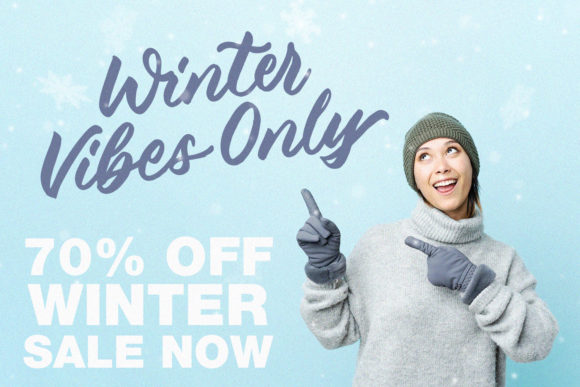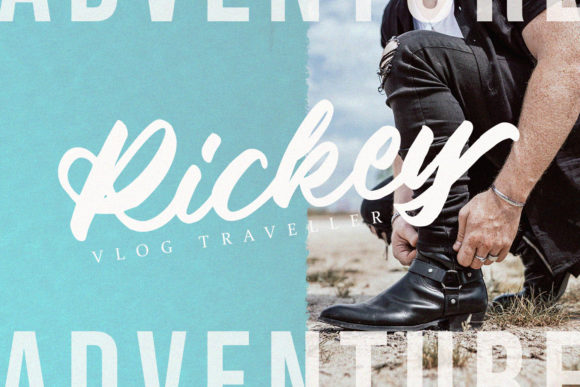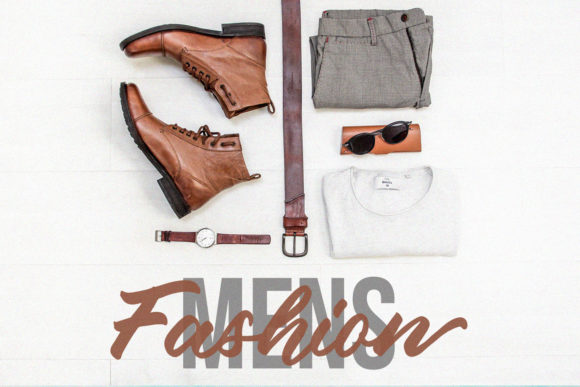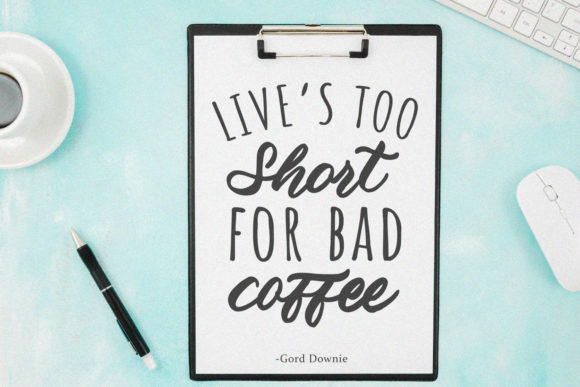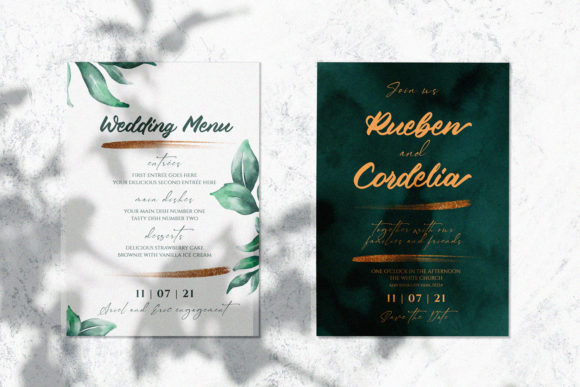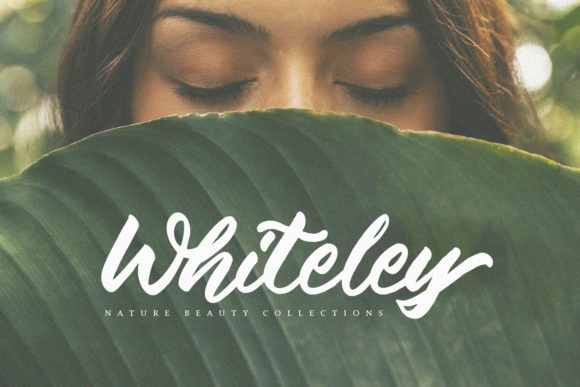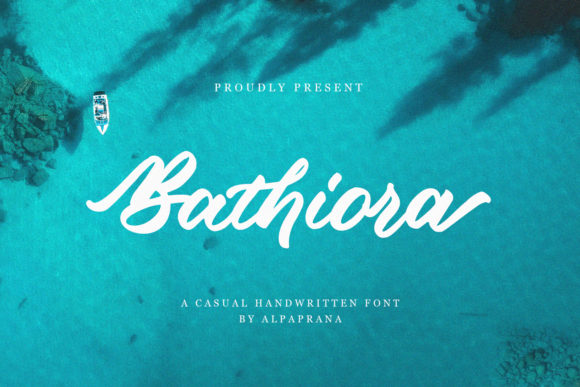
Bathiora Font: Elevate Your Designs with Elegance and Sophistication
Are you looking for a font that can add a touch of elegance and sophistication to your designs? Look no further than the Bathiora Font. This stunning handwritten font is designed to give your creations an authentic and casual feel, making it perfect for designers and crafters who want to make a statement.
The Unique Characteristics of Bathiora Font
Bathiora Font is a beautifully crafted handwritten font that exudes elegance and friendliness. Its unique characteristics make it stand out from other fonts, and its versatility ensures that it can be used in a wide range of design projects. Whether you’re creating a logo, branding materials, or social media graphics, Bathiora Font is the perfect choice.
What Makes Bathiora Font Special?
- Authentic and Casual Feel: Bathiora Font has an authentic and casual feel that makes it perfect for designs that require a personal touch.
- Elegant and Friendly: The font’s elegant and friendly appearance makes it suitable for a wide range of design projects, from luxury brands to personal blogs.
- PUA Encoded: Bathiora Font is PUA encoded, which means that you can access all of the glyphs and swashes with ease. This makes it easy to customize your designs and add a personal touch.
How to Use Bathiora Font in Your Designs
Bathiora Font is easy to use and can be incorporated into your designs in a variety of ways. Here are a few ideas to get you started:
- Logos and Branding: Use Bathiora Font to create a unique and memorable logo for your brand. Its elegant and sophisticated appearance makes it perfect for luxury brands, beauty products, and lifestyle companies.
- Social Media Graphics: Add a touch of elegance to your social media graphics with Bathiora Font. Use it to create eye-catching headlines, quotes, and promotional materials.
- Invitations and Stationery: Bathiora Font is perfect for creating beautiful invitations, stationery, and greeting cards. Its authentic and casual feel makes it suitable for personal and formal events.
Benefits of Using Bathiora Font
There are many benefits to using Bathiora Font in your designs. Here are a few:
- Unique and Memorable: Bathiora Font is a unique and memorable font that will help your designs stand out from the crowd.
- Versatile: The font’s versatility ensures that it can be used in a wide range of design projects, from luxury brands to personal blogs.
- Easy to Use: Bathiora Font is easy to use and can be incorporated into your designs with ease. Its PUA encoding makes it easy to access all of the glyphs and swashes.
In conclusion, Bathiora Font is a stunning handwritten font that can add a touch of elegance and sophistication to your designs. Its unique characteristics, versatility, and ease of use make it perfect for designers and crafters who want to make a statement. Whether you’re creating a logo, social media graphics, or invitations, Bathiora Font is the perfect choice.